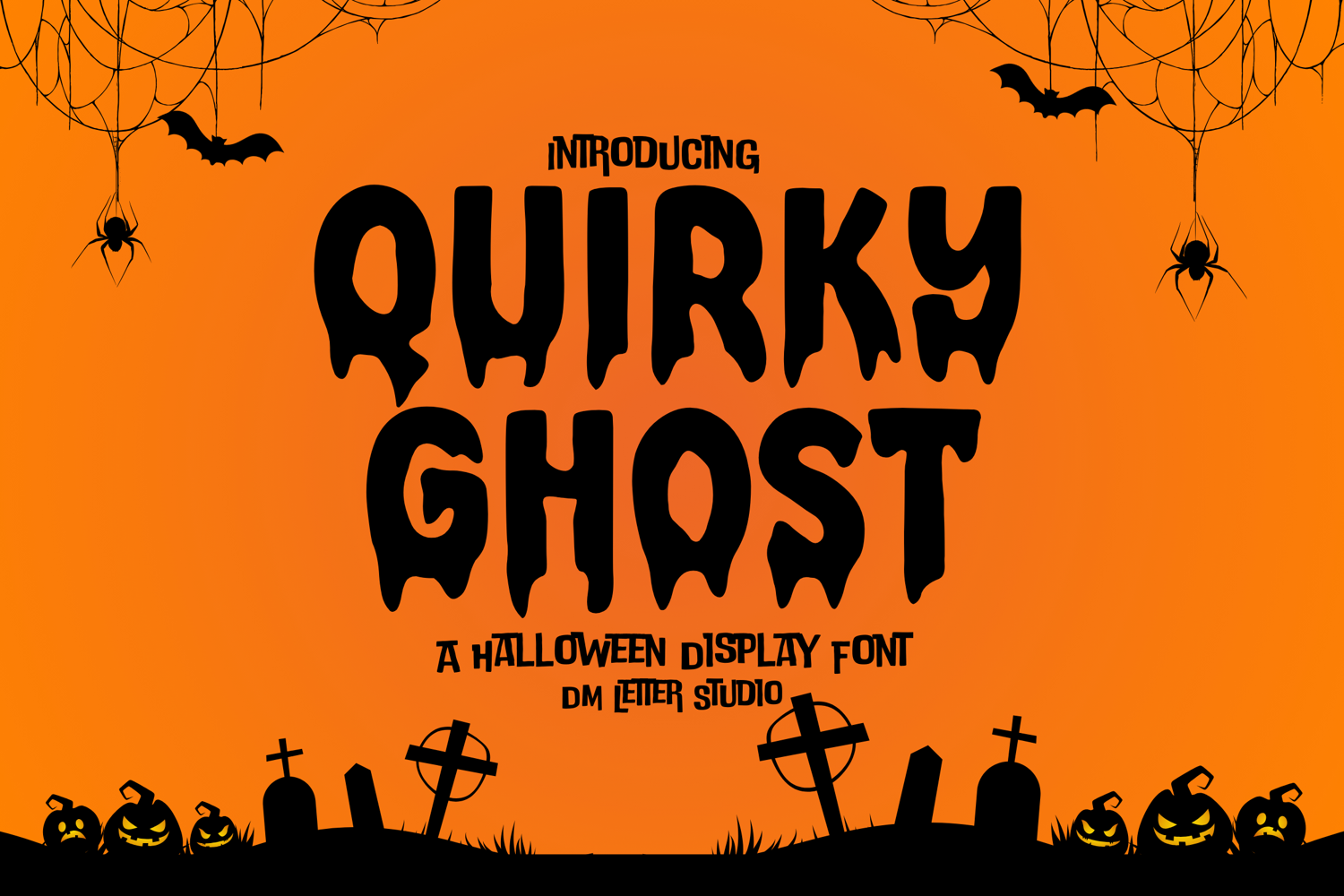
Quirky Ghost - Playful & Spooky Halloween Font
Quirky Ghost
Quirky Ghost – Playful & Spooky Halloween Font
Quirky Ghost is a fun and whimsical Halloween-themed display font designed to bring a light-hearted yet spooky vibe to your seasonal creations. With its quirky shapes and ghostly character design, this font is perfect for Halloween invitations, party decor, greeting cards, posters, and spooky branding. It adds a playful fright to any design while still keeping things cute and friendly.
• Playful Ghost-Inspired Design: Fun character styling with ghostly and quirky accents.
• Perfect for Halloween Projects: Ideal for invitations, party crafts, trick-or-treat bags, spooky quotes, and more.
• Spooky Yet Cute Aesthetic: Balanced between fun and fright for all ages.
• Complete Character Set: Includes uppercase, lowercase, numbers, punctuation, and multilingual support.